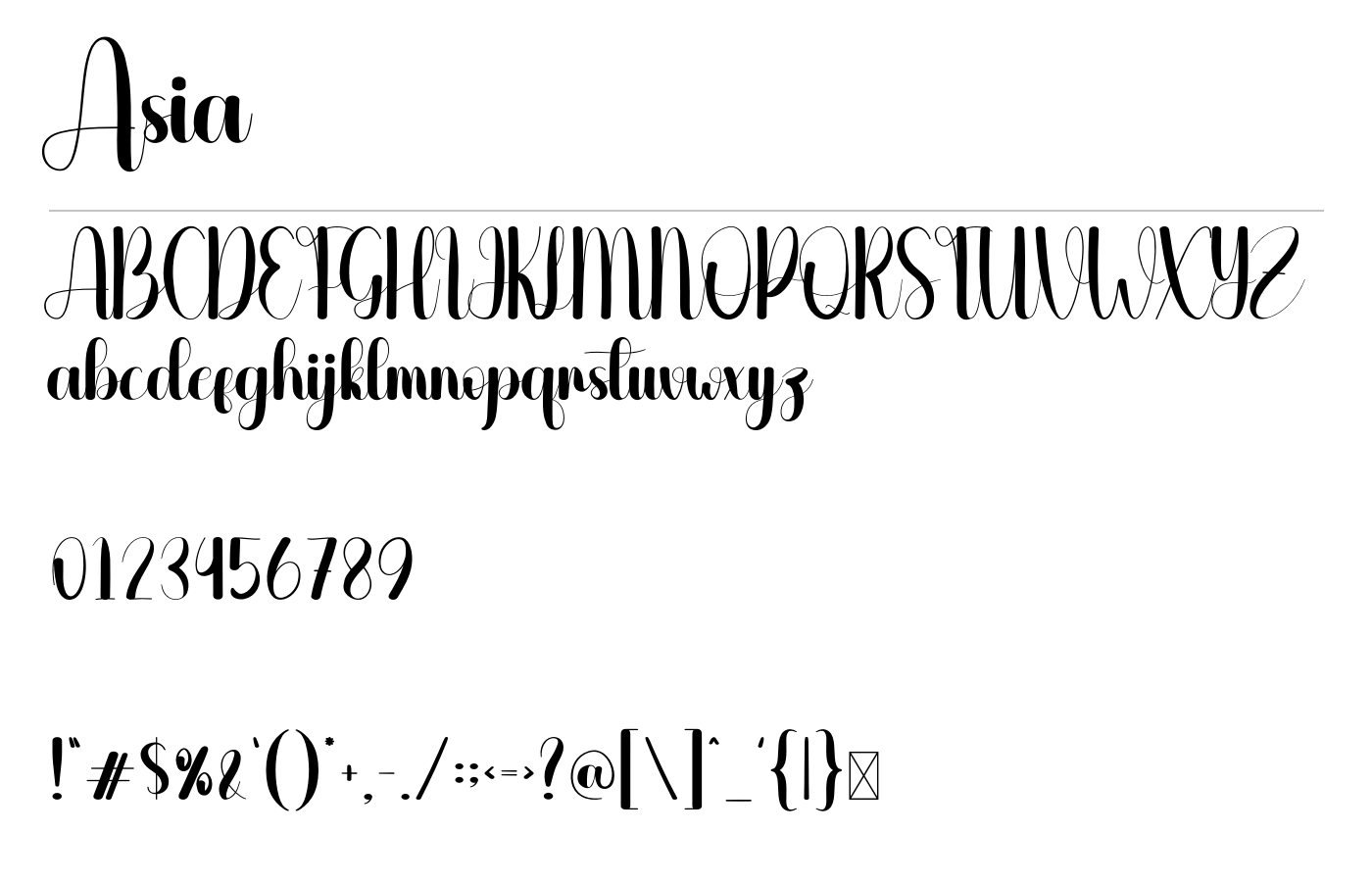
Asia Font is a stylish script typeface with a playful yet elegant personality, featuring strong contrast between thick and thin strokes and graceful, looping flourishes that bring a lively, handcrafted feel. Its bold weight and tall, narrow letterforms make it perfect for eye-catching headlines, logos, and decorative uses where a touch of sophistication and charm is desired. This font works beautifully for fashion branding, invitations, and creative packaging, adding a modern yet warm flair to any design.
Asia Font
About Asia Font